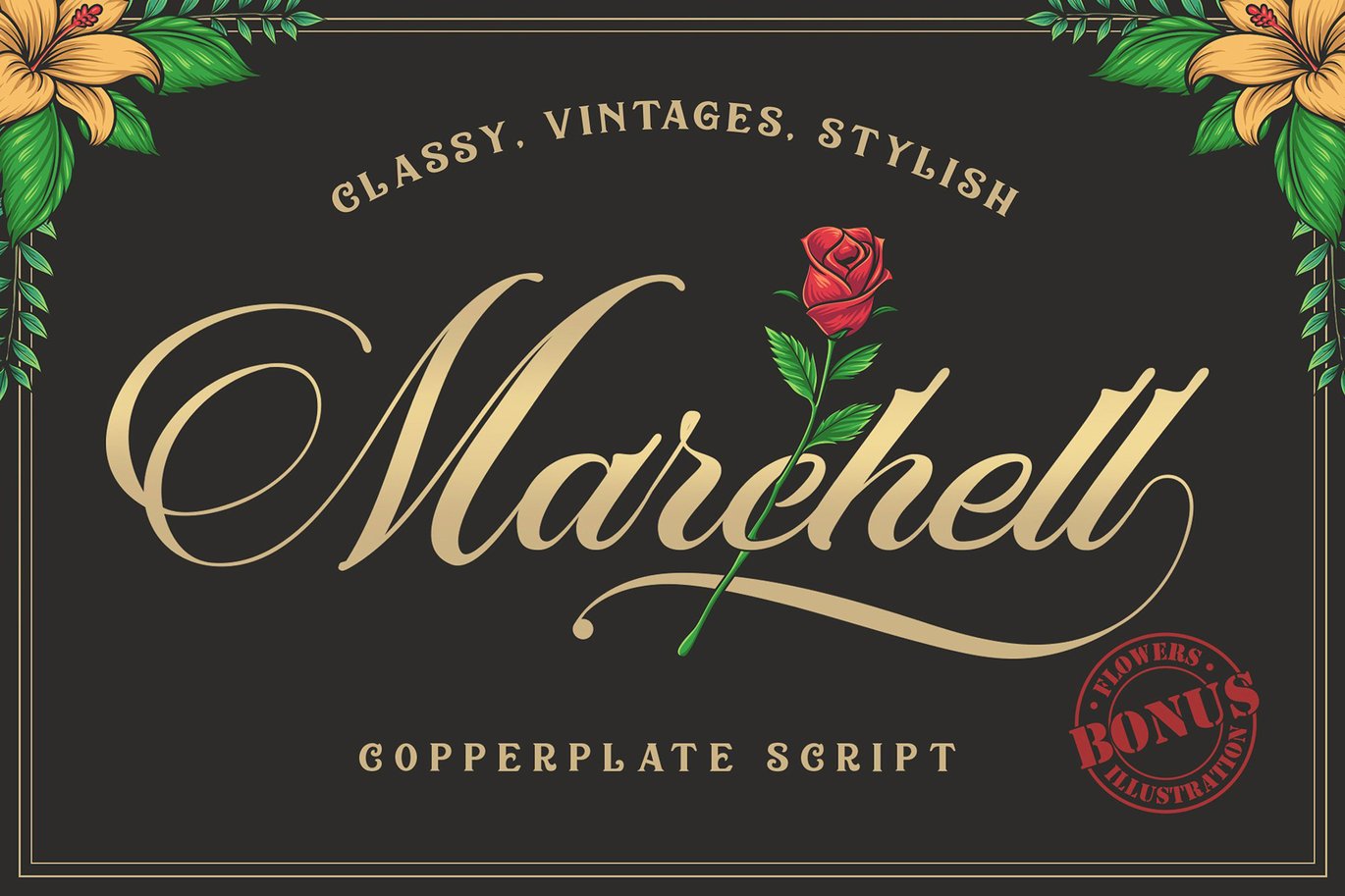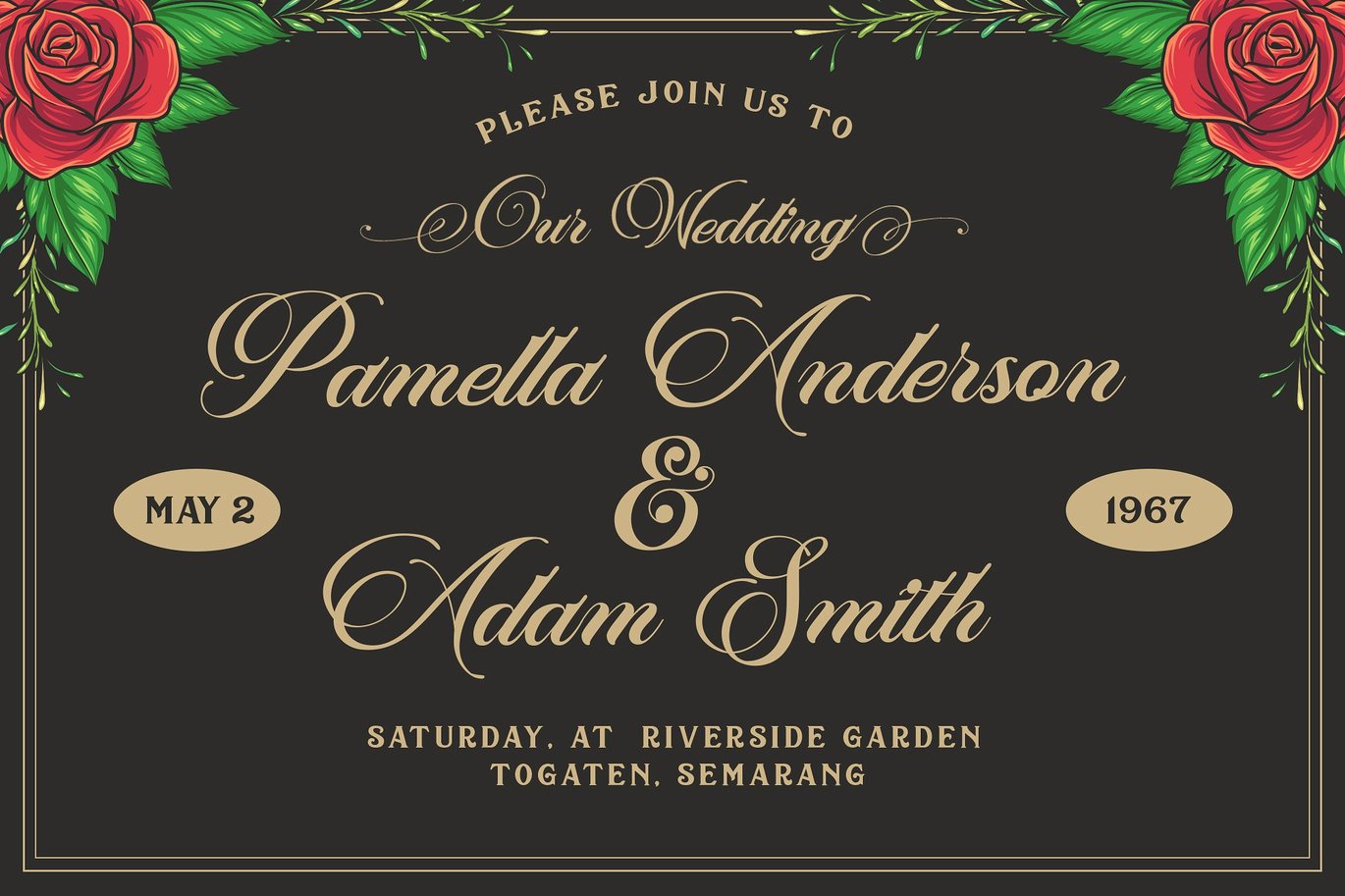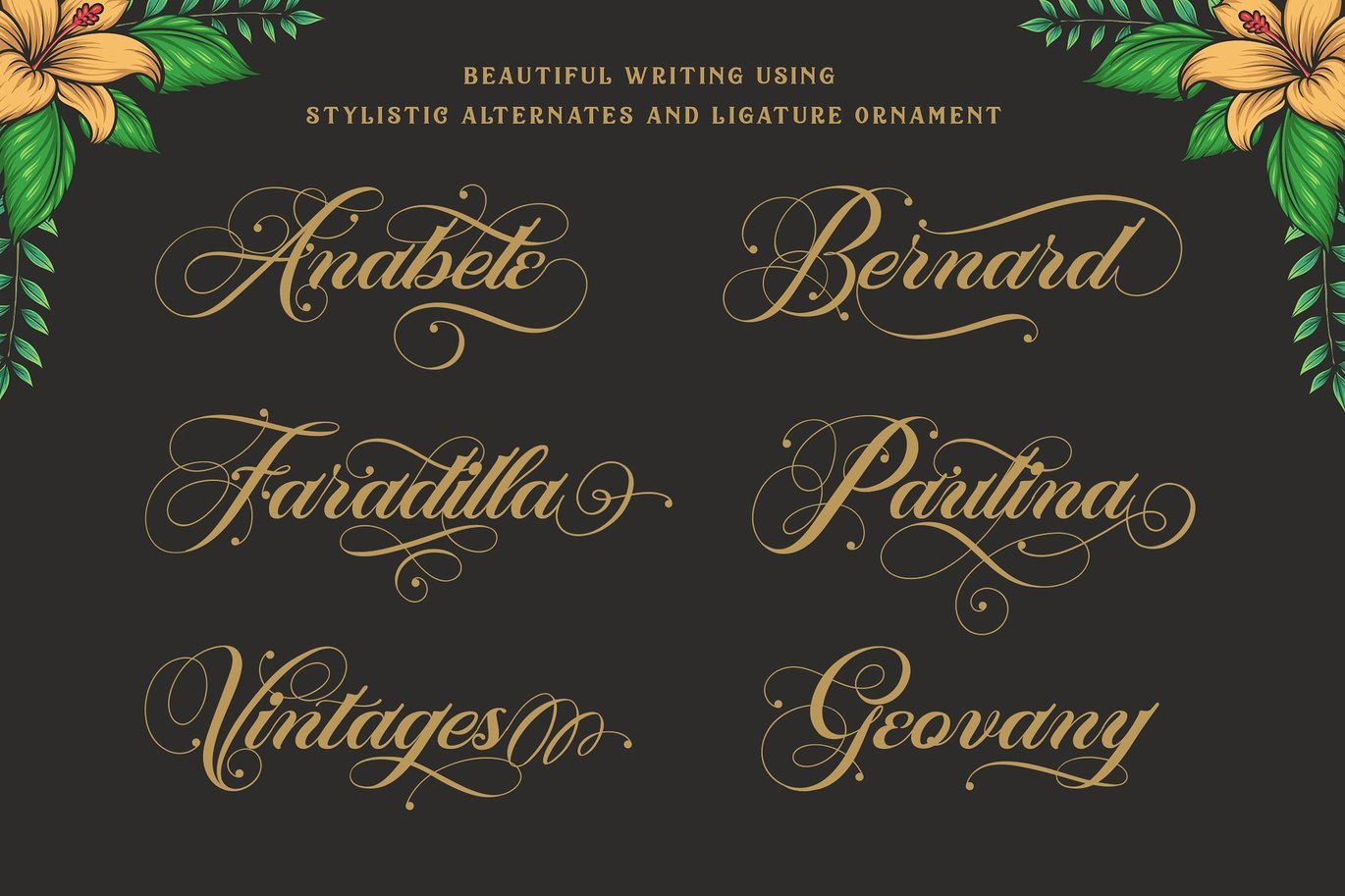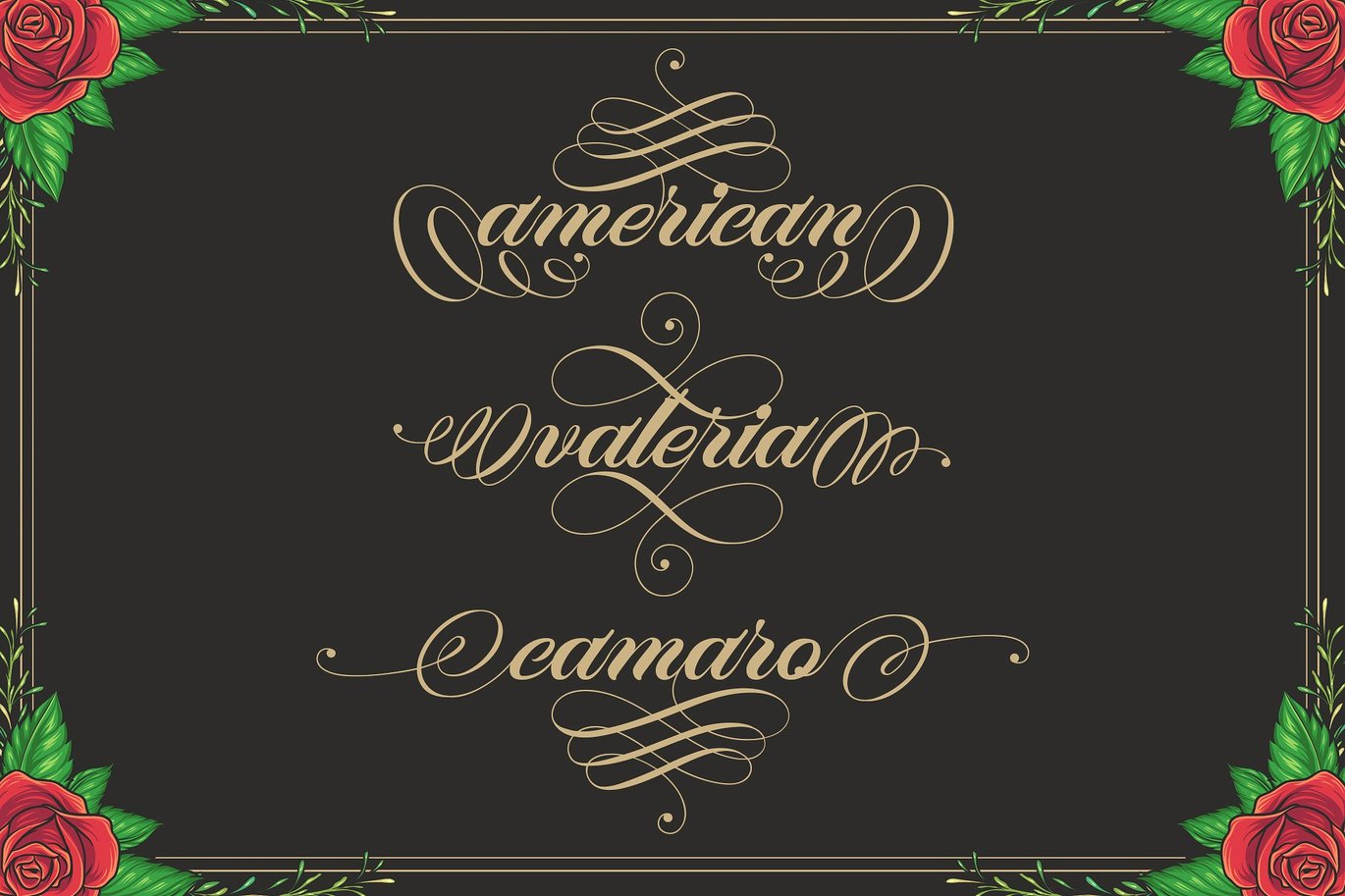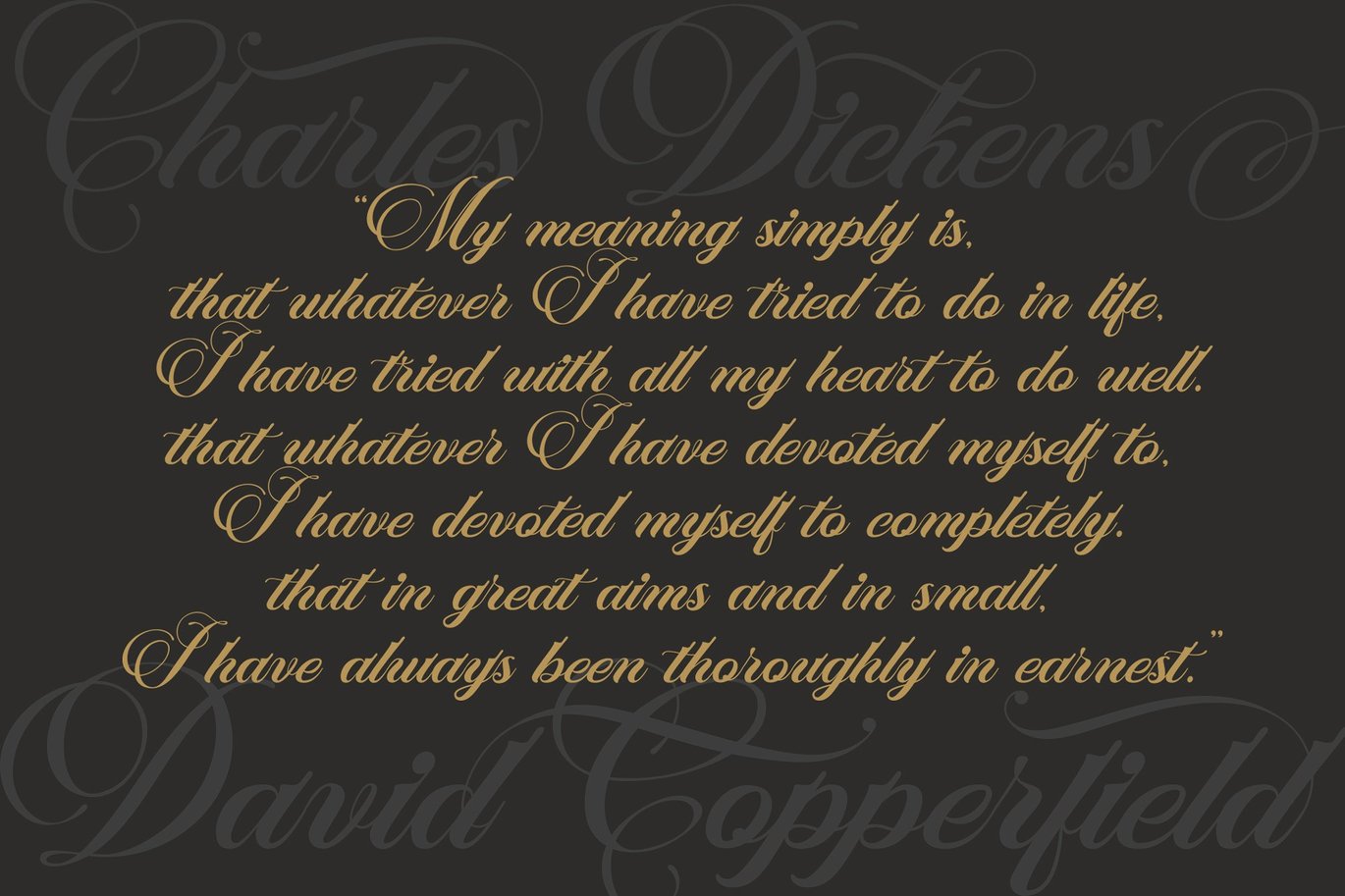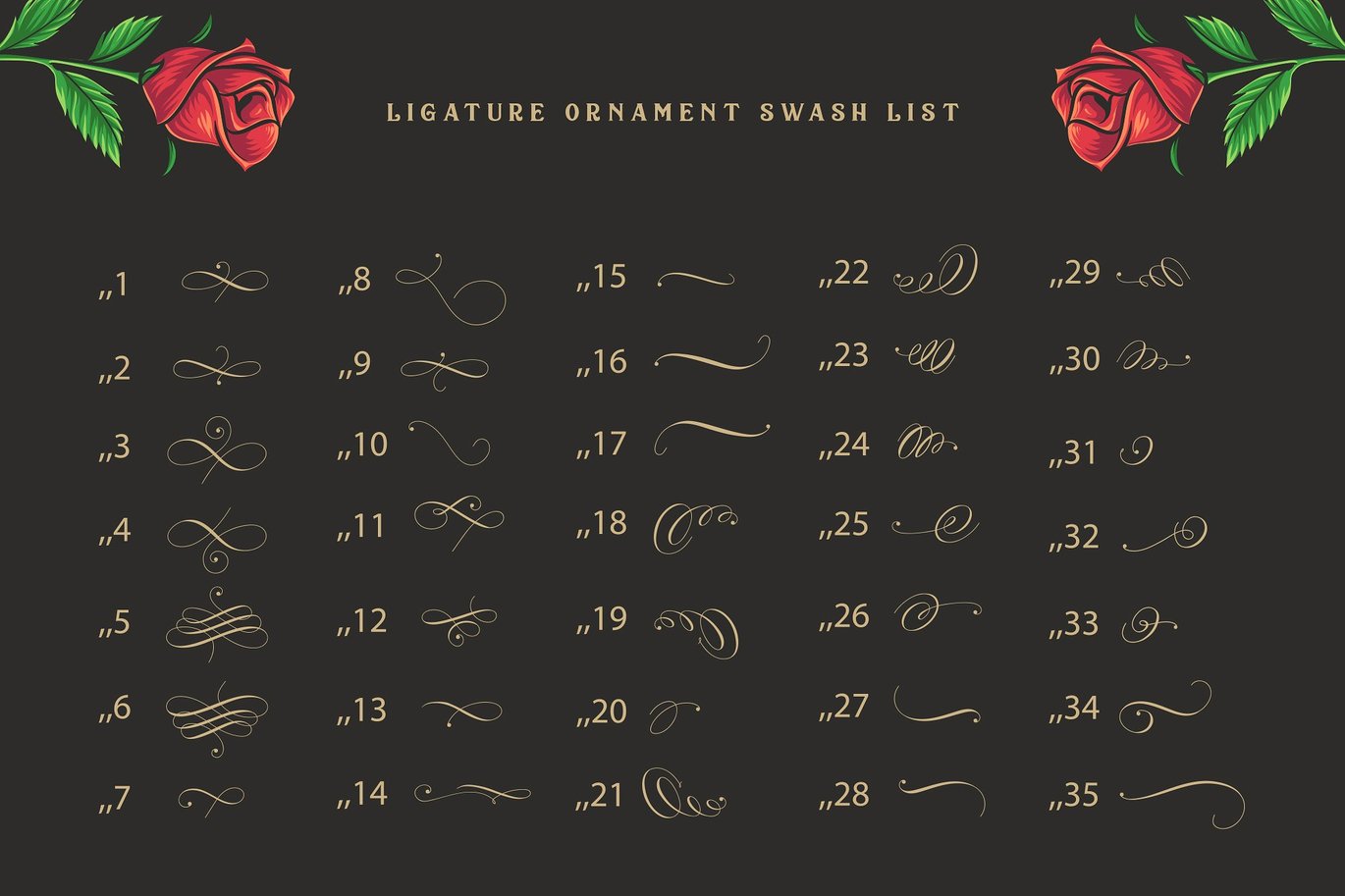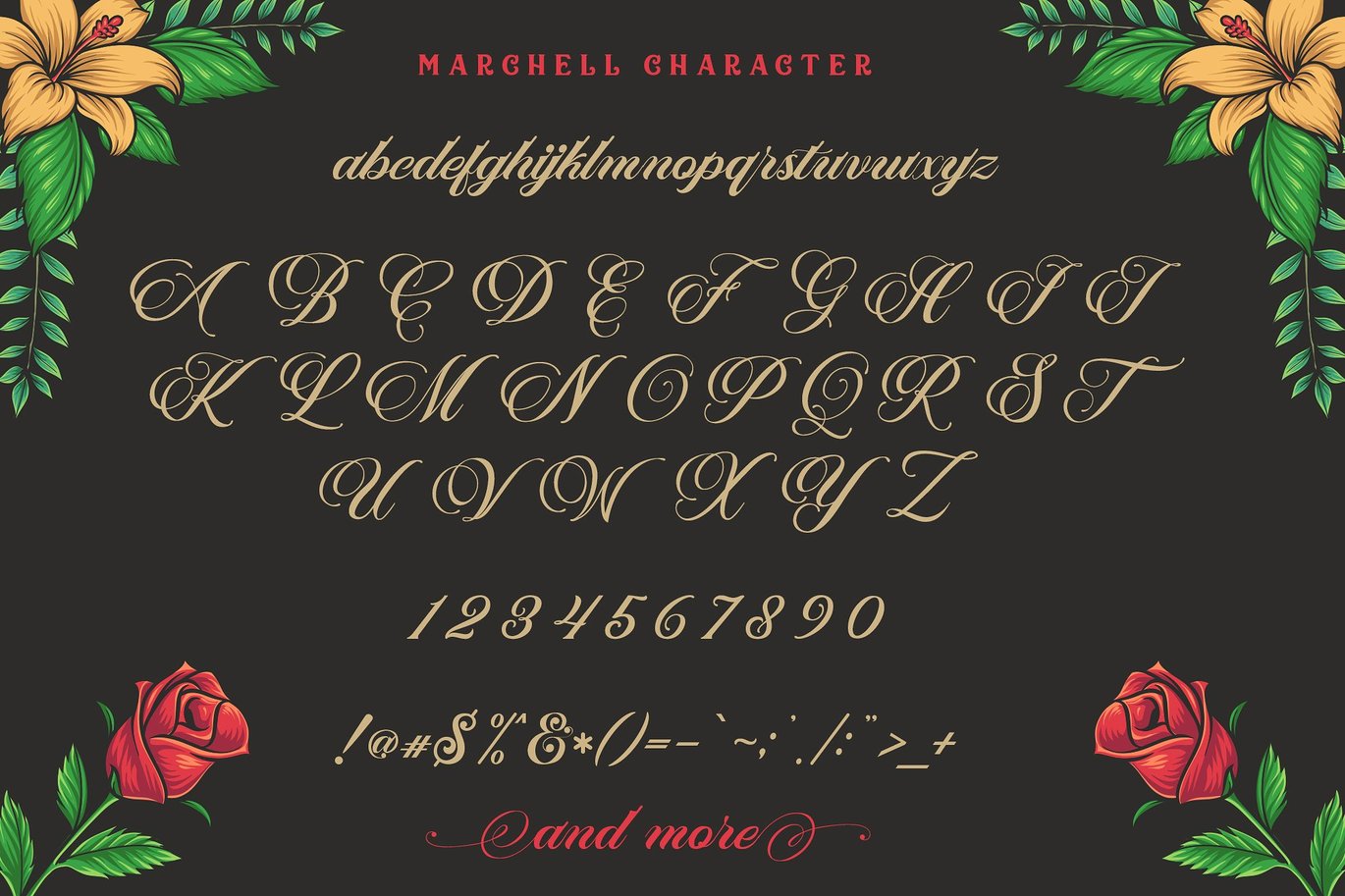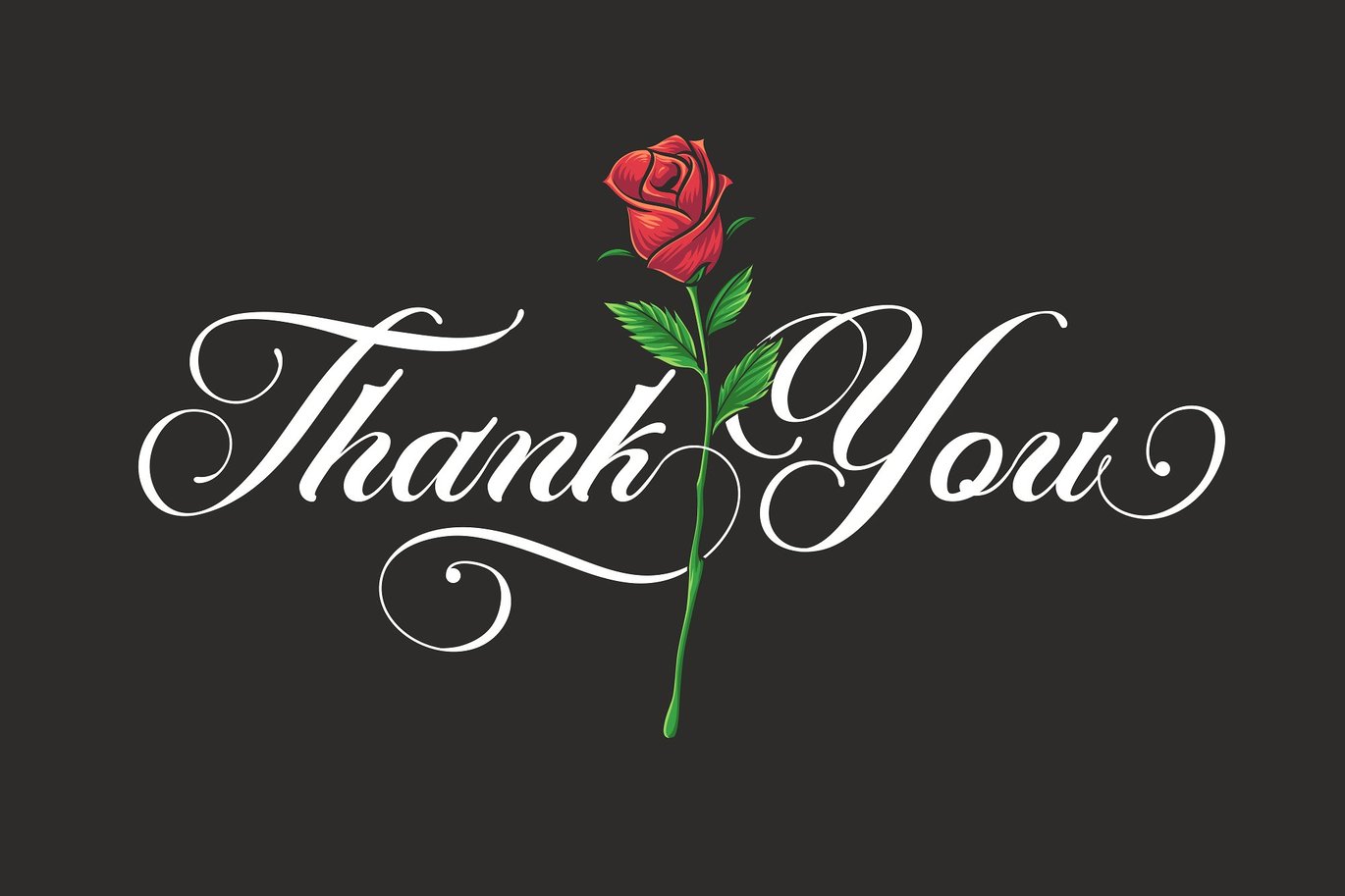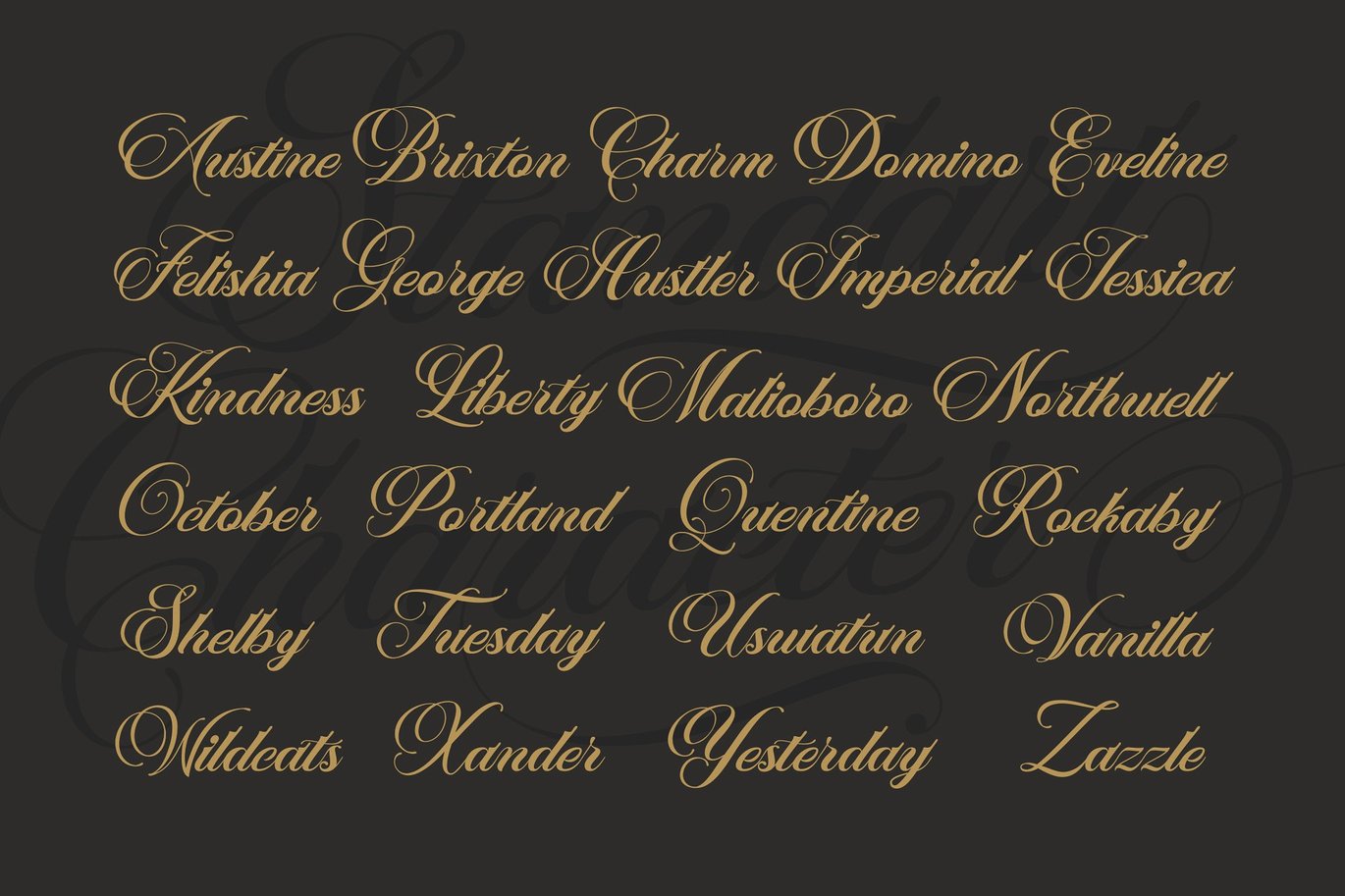
Marchell Font+ Bonus Vector Flowers
MARCHELL + BONUS FLOWER ILLUSTRATIONS
Hello i came back with a new product, this is Marchell Script, this is a copperplate style font that looks classic, vintage and retro but still looks elegant, luxurious and georgeous. Marchell is a little different from some existing fonts, I made a slightly different shape and added an alternative character with a more decorative shape as well I added 35 different swashes that you can use easily, please see this video how to using this font: https://www.youtube.com/watch?v=mwp1yyOko4s&feature=youtu.be
Of course this font has multilingual suport (Afrikaans Albanian, Catalan, Croatian, Czech, Dutch, English, Estonian, Finnish, German, Hungarian, Italian, Polish, Portugese, Slovak, Slovenian, Spanisch, Swedish, Zulu) I also give you a flower illustration bonus that you can use to beautify when you use this font, available EPS and PNG files. This font is very suitable in use for wedding invitations, logotype, badge, branding, packing, etc